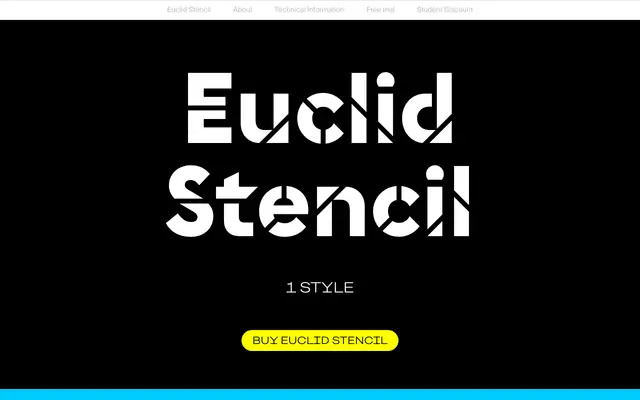
Euclid Stencil
Swiss Typefaces · Emmanuel Rey
A stencil extension of the Euclid geometric sans family, designed by Emmanuel Rey at Swiss Typefaces.
Euclid Stencil applies stencil interruptions to the geometric forms of the Euclid family, producing a display-oriented cut suited to editorial, signage and identity work that needs a harder industrial edge. The underlying geometry of Euclid is preserved, so the stencil reads as a considered variant rather than a separate departure. Font engineering was handled by Christoph Koeberlin.
A stencil variant of the geometric Euclid family, the interrupted strokes and cut forms place it firmly in display territory while retaining the geometric sans skeleton of its parent.